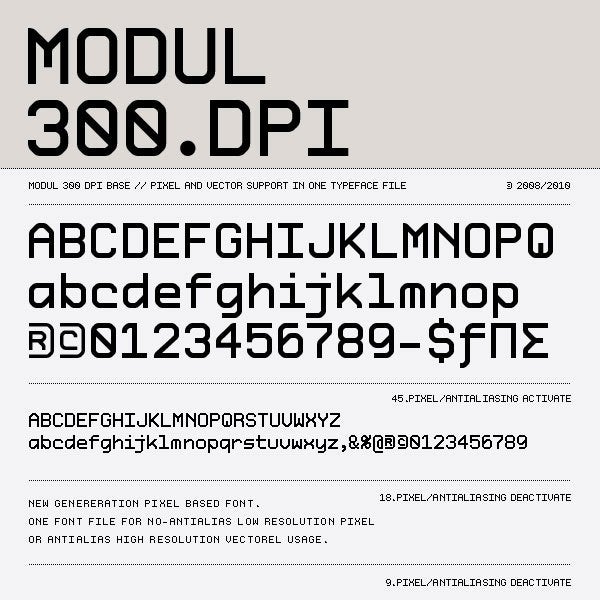
this is an old specimen I have probably from the late 90's
the design is similar to Autoscape.
You have the printed specimen, or just this digital image?
Hmm, not finding it yet, but lots of others in this genre:
Modul 300